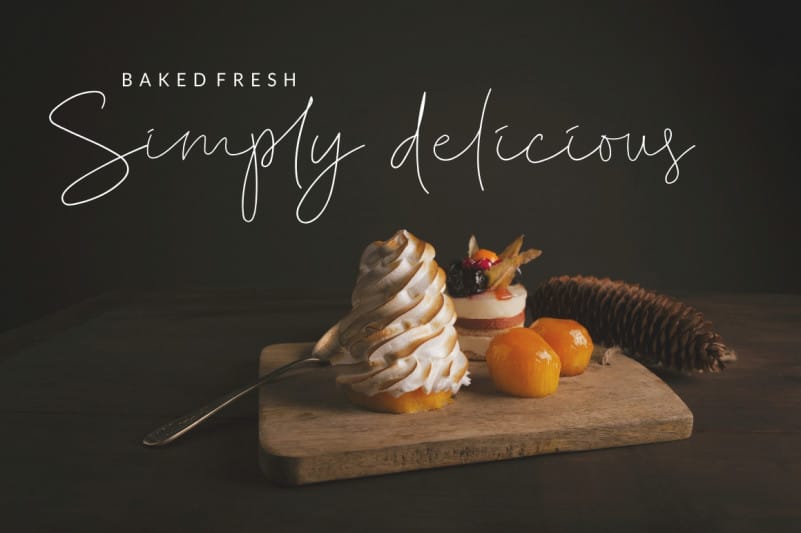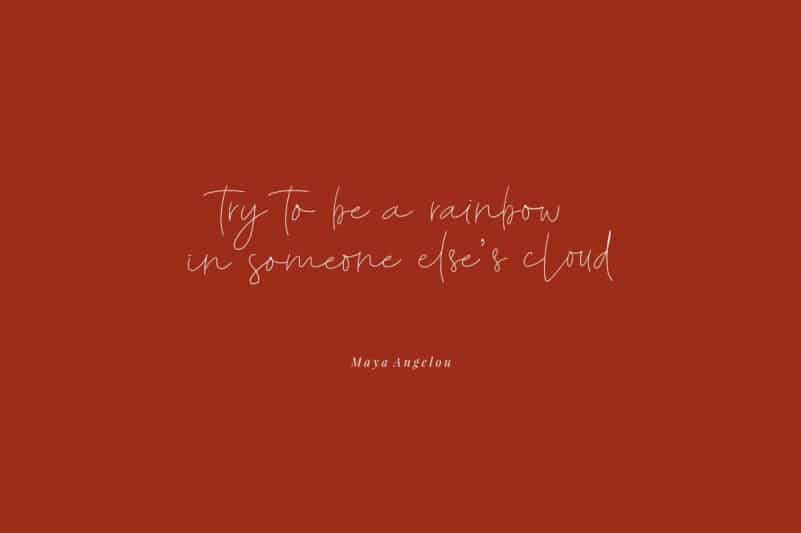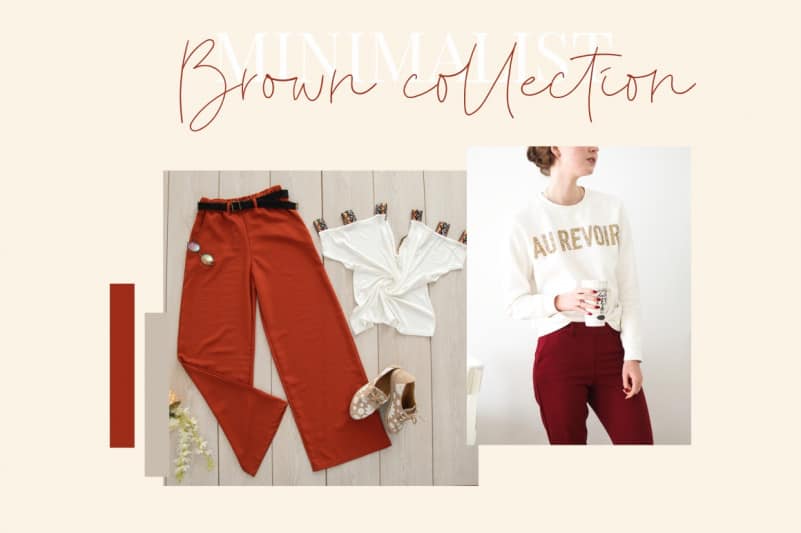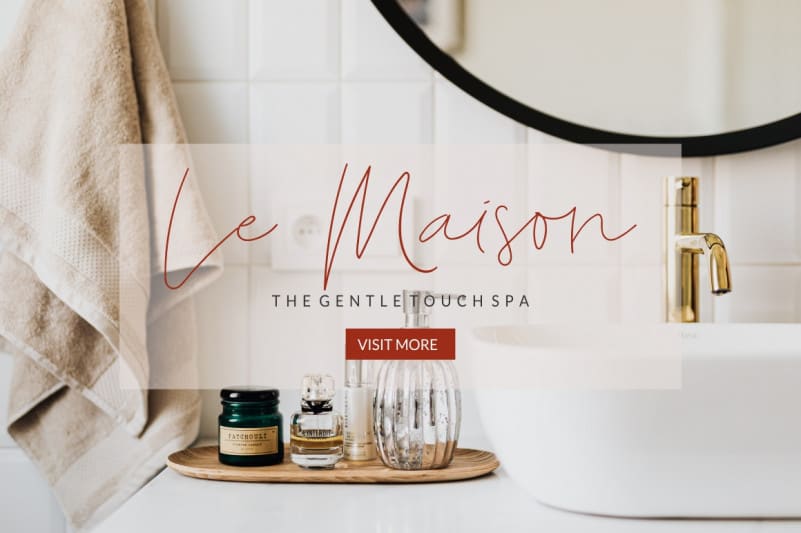
Introducing – Des Rosesa Handwritten Font. A stylish modern calligraphy font with casual and natural handwritten. It is complete by the addition of 101 custom ligatures. Very suitable in use Like blog header, branding, t-shirt, wedding, social media, product design, stationery, advertising, clothing, book cover, business cards, greeting cards, branding, merchandise, invitations and handmade quotes.